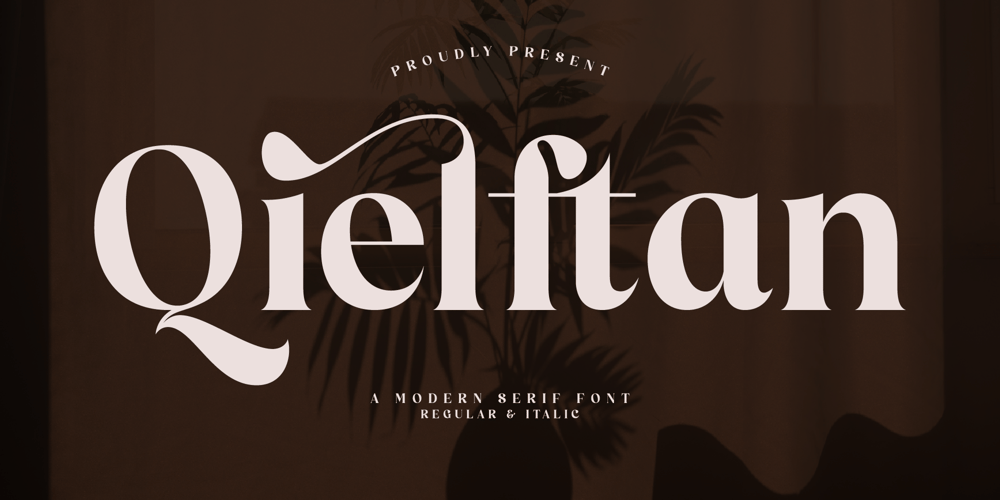
Qielftan
Qielftan font
Qielftan Font Family was designed by Heru Utama Putra and published by Letterena Studios. Qielftan contains 2 styles and family package options. Qielftan is a modern and stylish serif font that has its own unique appearance. This typeface is perfect for an elegant and luxurious logo, fashion brands, magazines, apparel, lettering, quotes, and so much more.